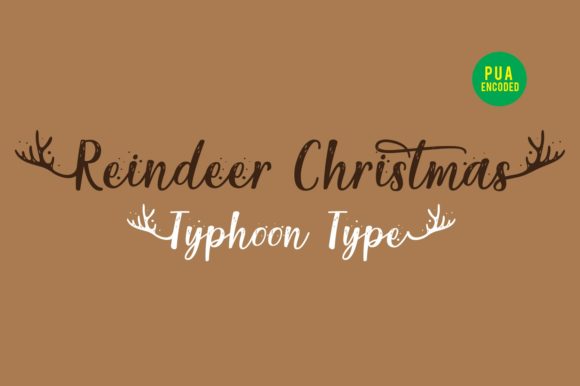
Reindeer Christmas is a lovely script font. It is perfect for logos, social media posts, product packaging, greeting cards and, of course, Christmas cards!